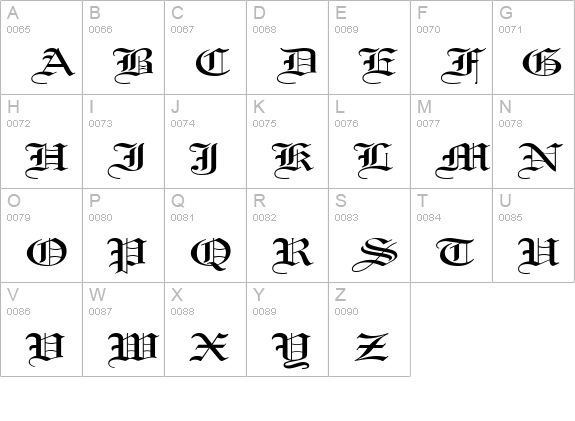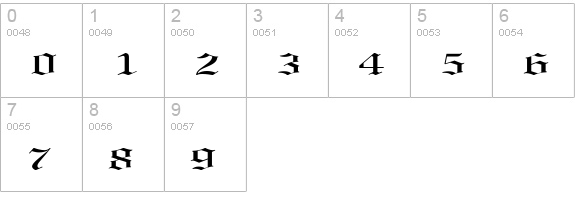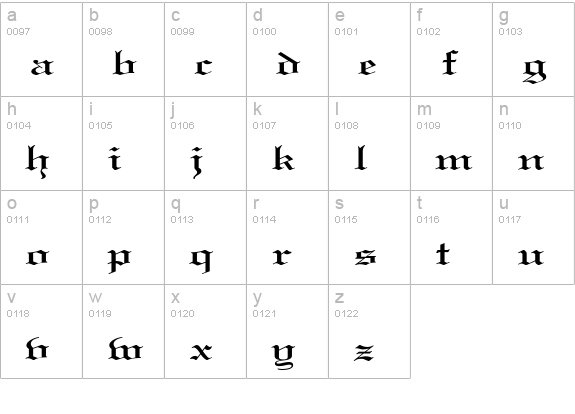
CertificateExtended Font Details
CertificateExtended font is a stylish and elegant typeface that exudes sophistication and class. With its elongated and ornate letterforms, this font is perfect for creating certificates, invitations, and other formal documents. The timeless design of CertificateExtended adds a touch of refinement to any project. The best part? CertificateExtended font is available for free download at FontsMarket.com. That's right, you can enhance your designs with this exquisite font without any cost. Don't miss out on the opportunity to elevate your projects with the beauty of CertificateExtended font, easily accessible and free to use.